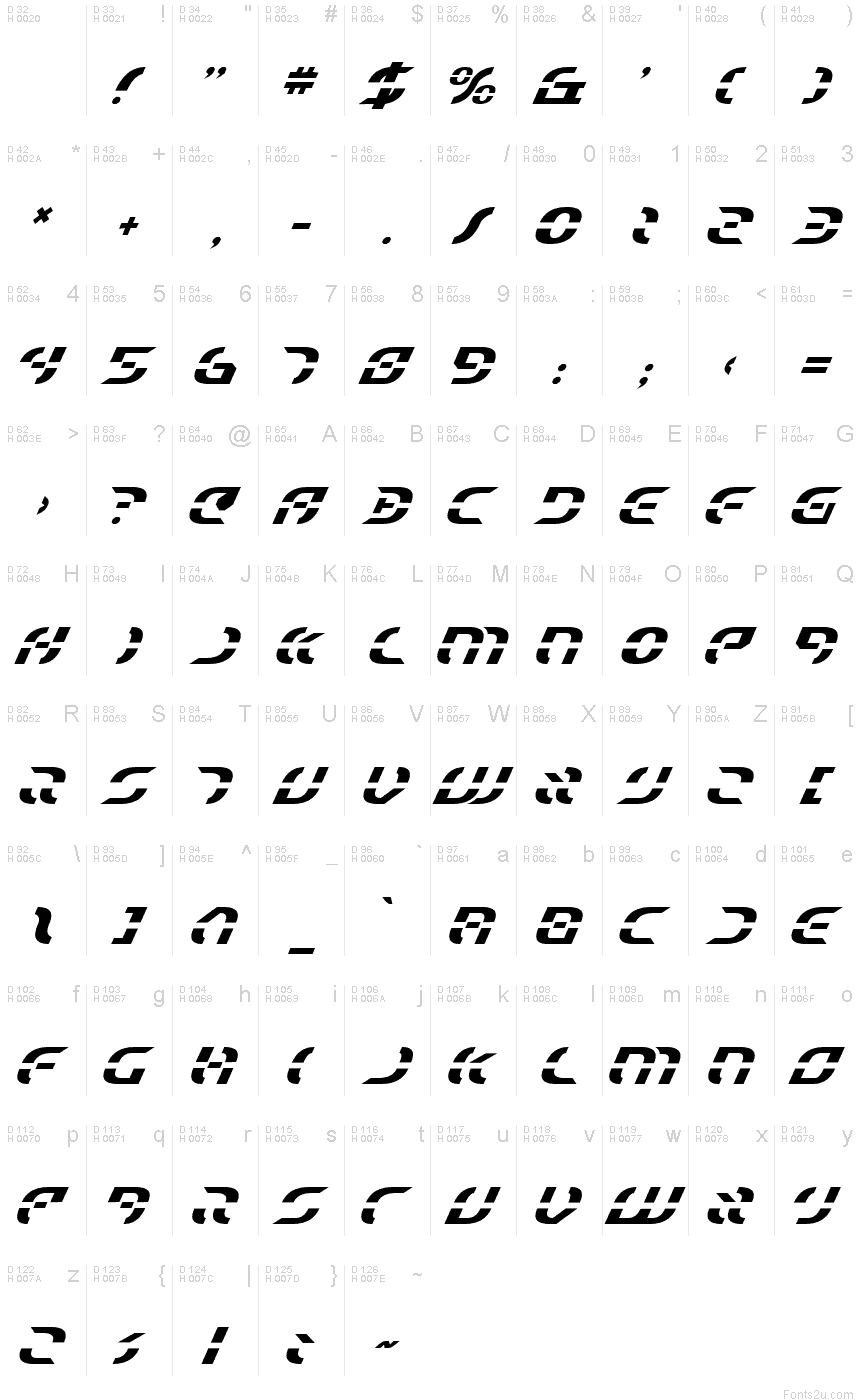
Starfighter Italic from Iconian Fonts is a free futuristic display font built from broad, forward-leaning letterforms. Deep horizontal cuts break through the strokes, creating a layered silhouette that recalls spacecraft markings and speed graphics. Rounded turns keep the otherwise mechanical shapes fluid.
Speed-driven subjects are its clearest territory. The sliced lettering can become a recognizable feature in game interfaces, film posters, team merchandise, and technology branding, especially when the design needs motion rather than cold precision. Its streamlined forms suit stories and products centered on racing, flight, space travel, or high-speed machinery.